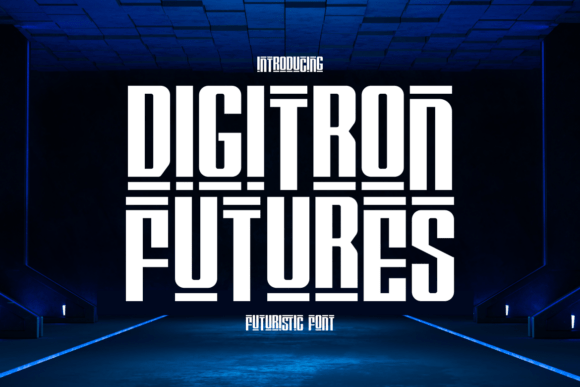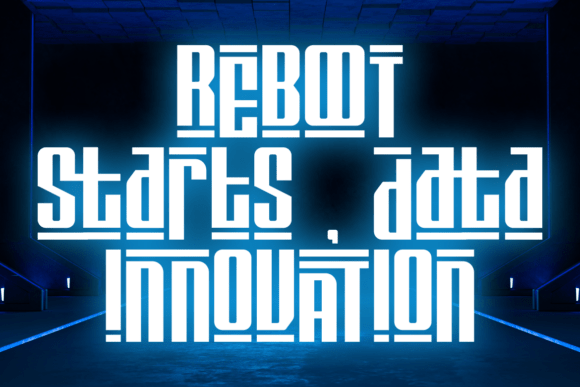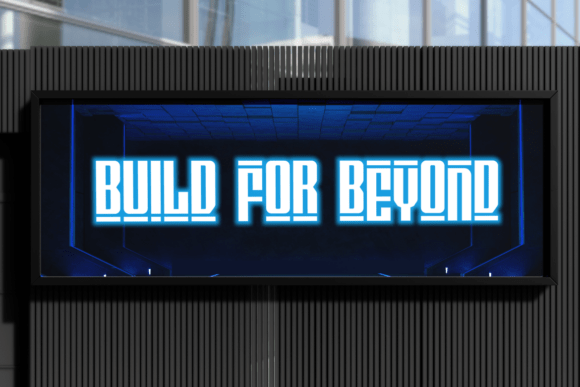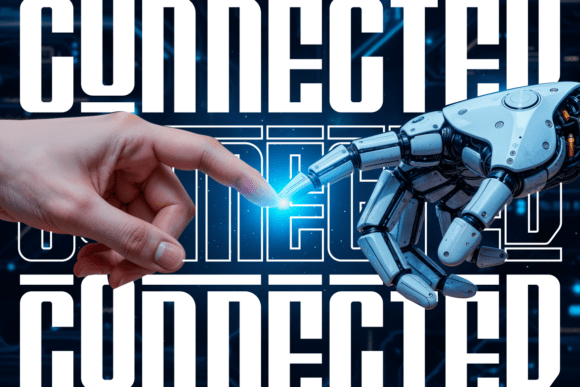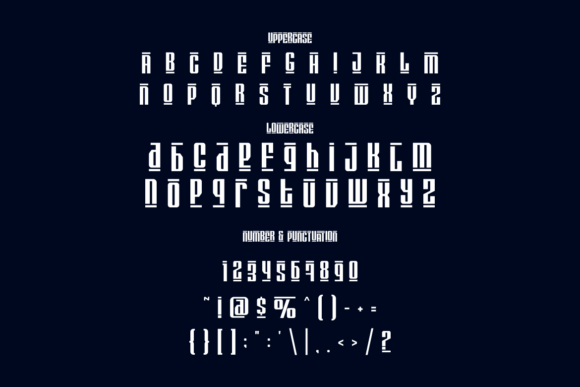
Designing for the Future: The Power of Digitron Futures Font
Have you ever been stuck on a design project, struggling to find the perfect font to convey the essence of your futuristic vision? You’re not alone. I’ve been there too, pouring over countless options until I stumbled upon the perfect solution: Digitron Futures Font. This sleek, high-tech display font is designed to transport your audience to a world of precision-engineered systems and artificial intelligence.
As a designer, you understand the importance of selecting a font that not only reflects your brand’s values but also captivates your audience. Digitron Futures Font is the ultimate tool for creating bold, high-tech layouts that demand attention. Its unique combination of sharp geometry, symmetrical alignment, and digital-tech styling makes it an ideal choice for sci-fi branding, digital product titles, and modern magazine covers.
Whether you’re designing a movie poster, a tech startup logo, or a modern magazine cover, Digitron Futures Font is sure to elevate your design to new heights. Its clean, legible shapes ensure that your message is conveyed with precision and clarity, while its character set includes everything you need to bring your vision to life.
Digitron Futures Font Key Features
- Font Family: Digitron Futures Font is a digital font designed for futuristic and sci-fi themes, available in multiple styles and weights.
- Unique Characteristics: The font features a distinctive blend of futuristic and industrial elements, with intricate details and geometric shapes, making it ideal for futuristic and tech-related designs.
- Weight and Style Options: The font includes various weights and styles, including Light, Regular, Bold, and Italic, offering flexibility for designers to create different moods and atmospheres.
Digitron Futures Font Review
Overall, I think the Digitron Futures Font has a lot of potential, but it also has some limitations that might hold it back. Here are my thoughts:
- ✨ The font’s unique blend of futuristic and industrial elements is quite striking. It’s perfect for sci-fi or tech-themed projects.
- ✨ The font is highly customizable, with a wide range of options for adjusting the weight, style, and spacing.
- ✨ The font is well-suited for both digital and print applications, making it a versatile choice for designers.
Limitsations:
- ⚠️ The font can be quite overwhelming, especially at larger sizes. It’s best used in smaller quantities or as an accent font.
- ⚠️ Some of the font’s more intricate details can be difficult to read at smaller sizes or in low-resolution contexts.
- ⚠️ The font’s overall aesthetic can be quite polarizing, and some designers may find it too futuristic or over-the-top.
Overall impression:
I’d give the Digitron Futures Font 3.5 out of 5 stars. While it’s a unique and versatile font, its limitations might make it a less-than-ideal choice for some projects. With a bit more refinement and attention to detail, I think this font could be truly exceptional.
Consider using the font in a futuristic or sci-fi context, such as in a concept art or a futuristic logo.
The Digitron Futures Font is ideal for use in futuristic and sci-fi designs, such as:
Concept art and illustrations
Futuristic logos and branding
Science fiction movie and game titles
Space-themed designs and graphics
The Digitron Futures Font includes a comprehensive character set that supports over 200 languages, including Latin, Cyrillic, Greek, and many Asian languages. The font also includes a wide range of symbols and glyphs to support various industries and applications.